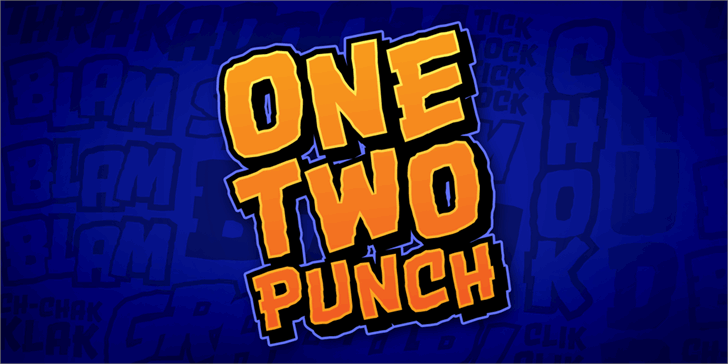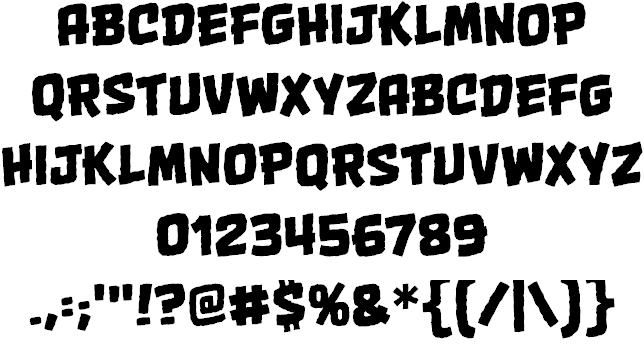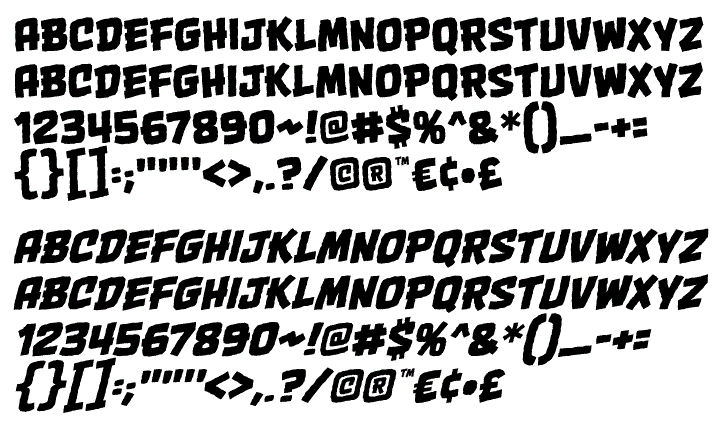
OneTwoPunch BB font
Enjoy this beefy, distressed sound effects font that includes regular and italic versions. Great for explosions, gunfights, and the pugilistic breaking of teeth!